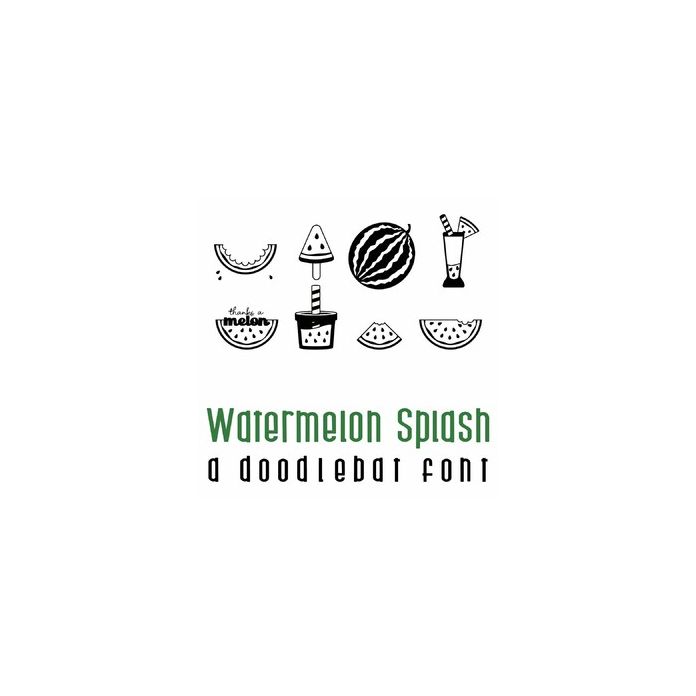
watermelon splash doodlebat font
This fun doodlebat font features 26 watermelon themed images. Perfect for cards, gifts, decor, crafts, scrap book pages, planner stickers and more!